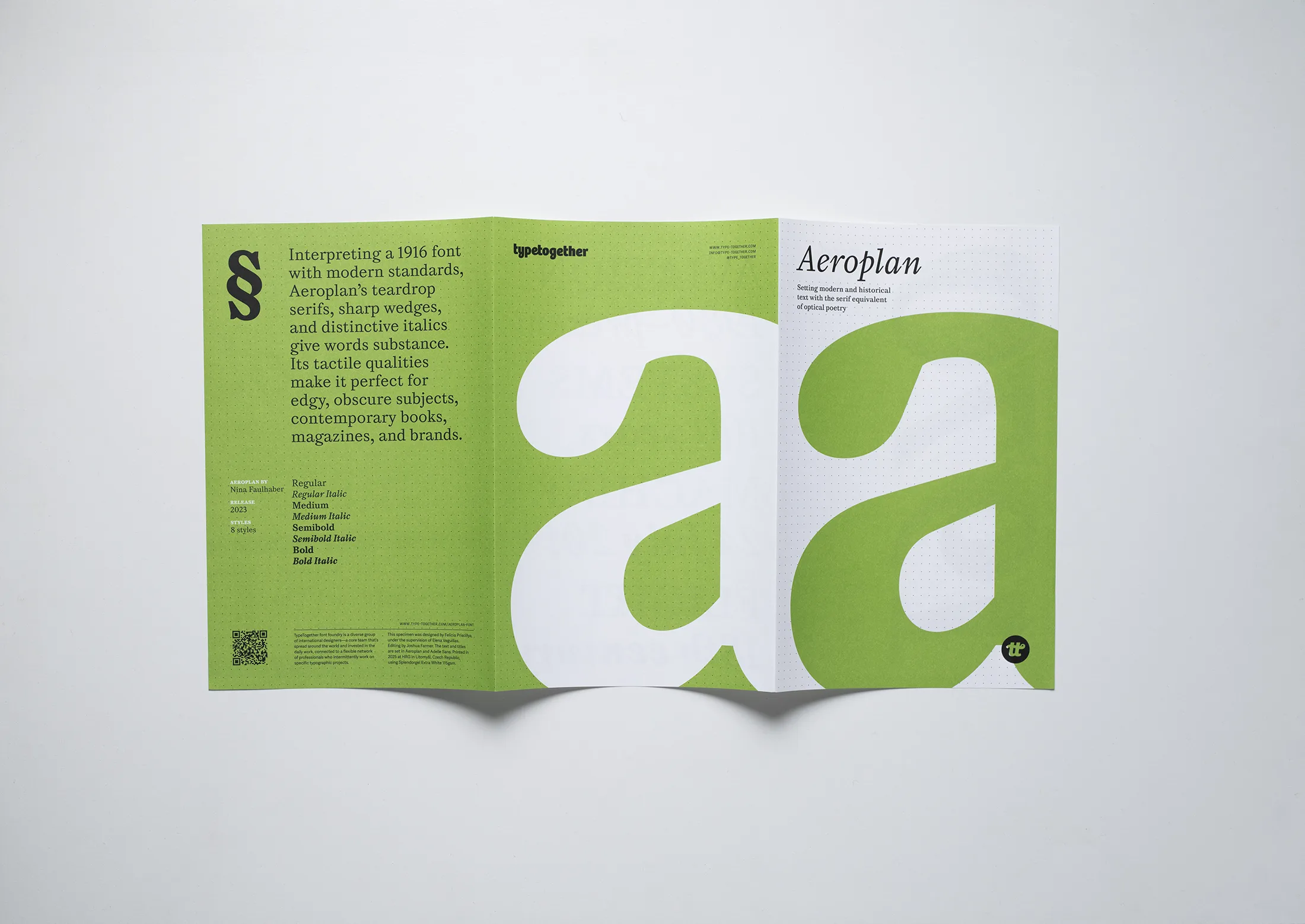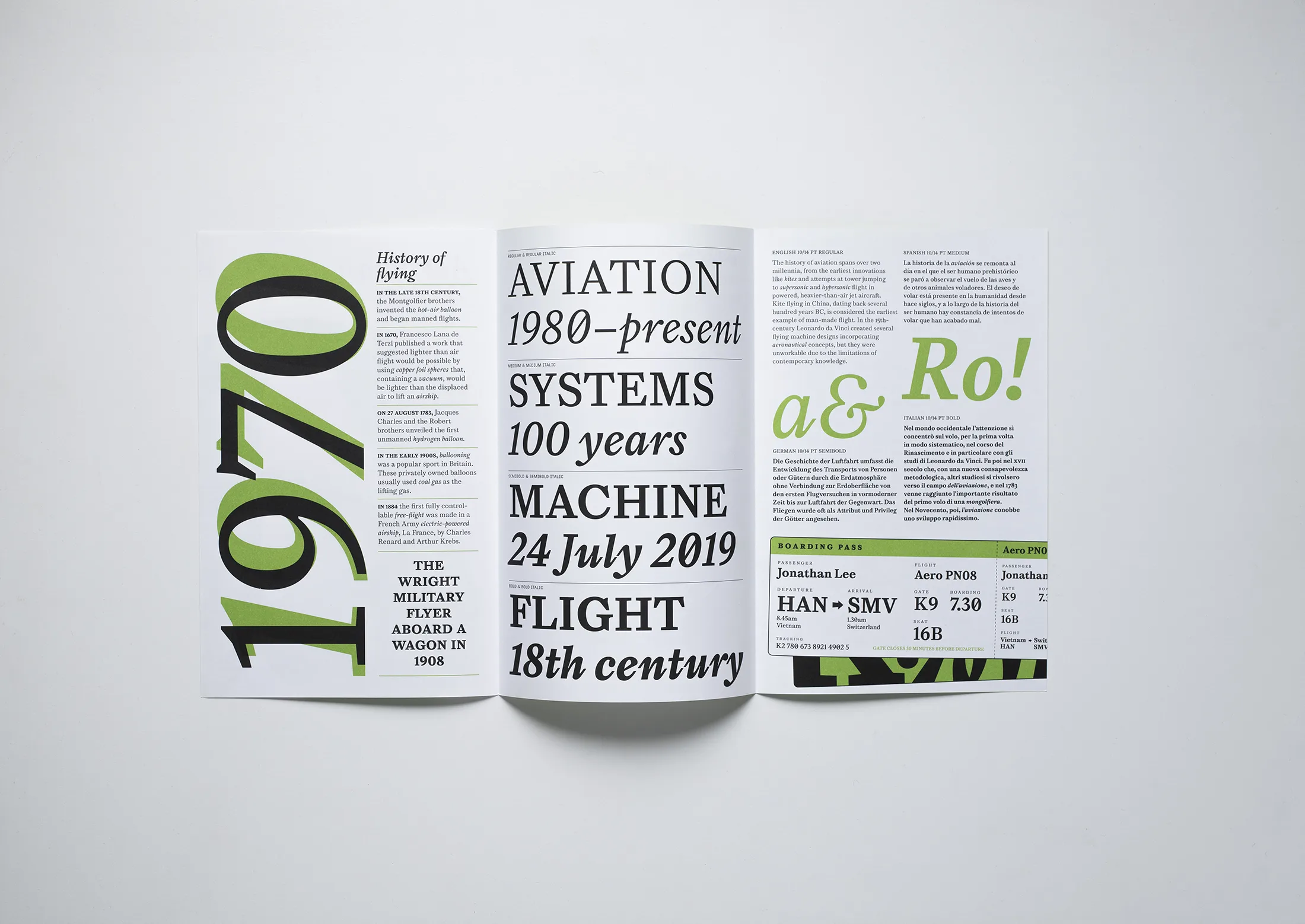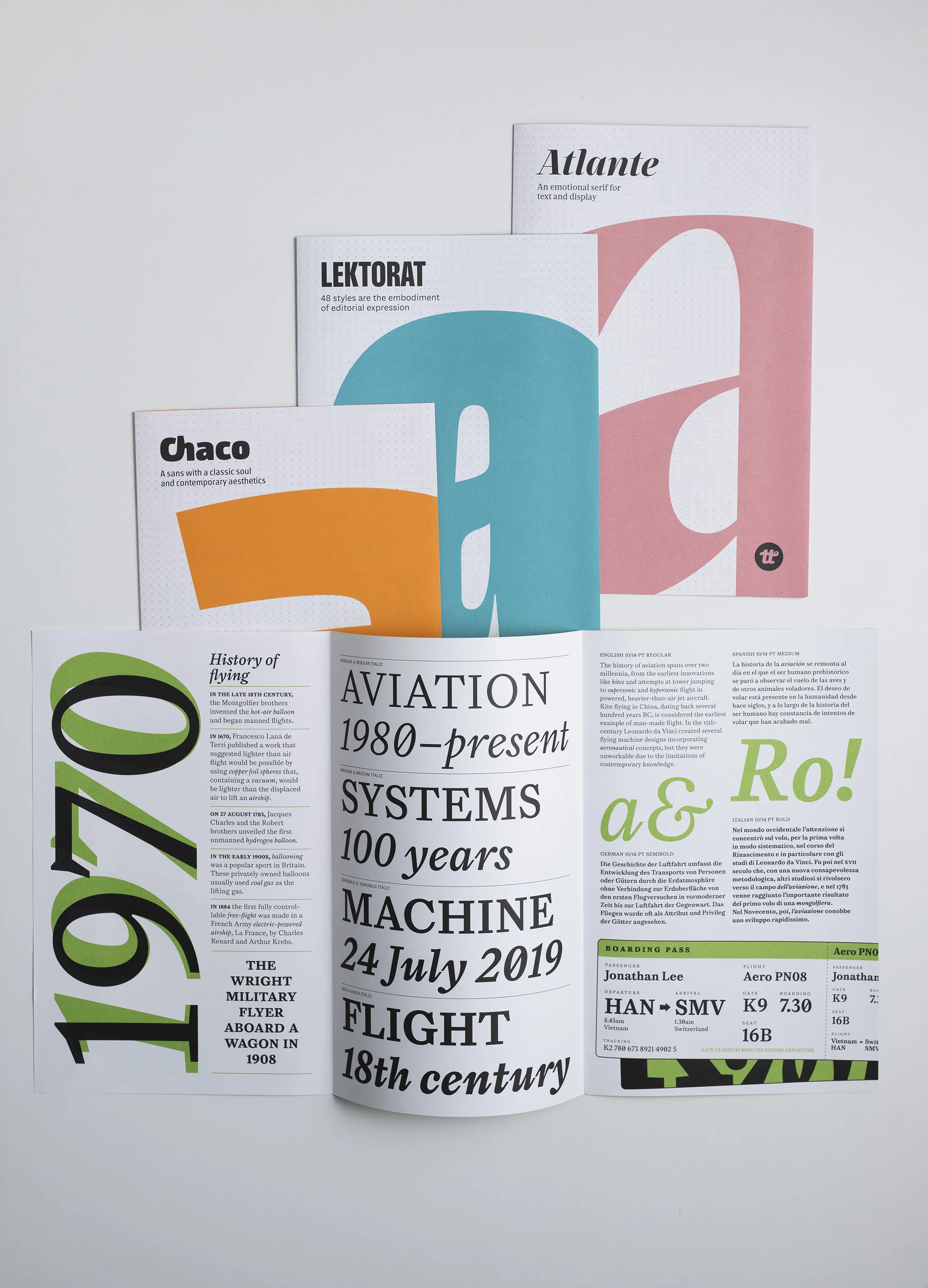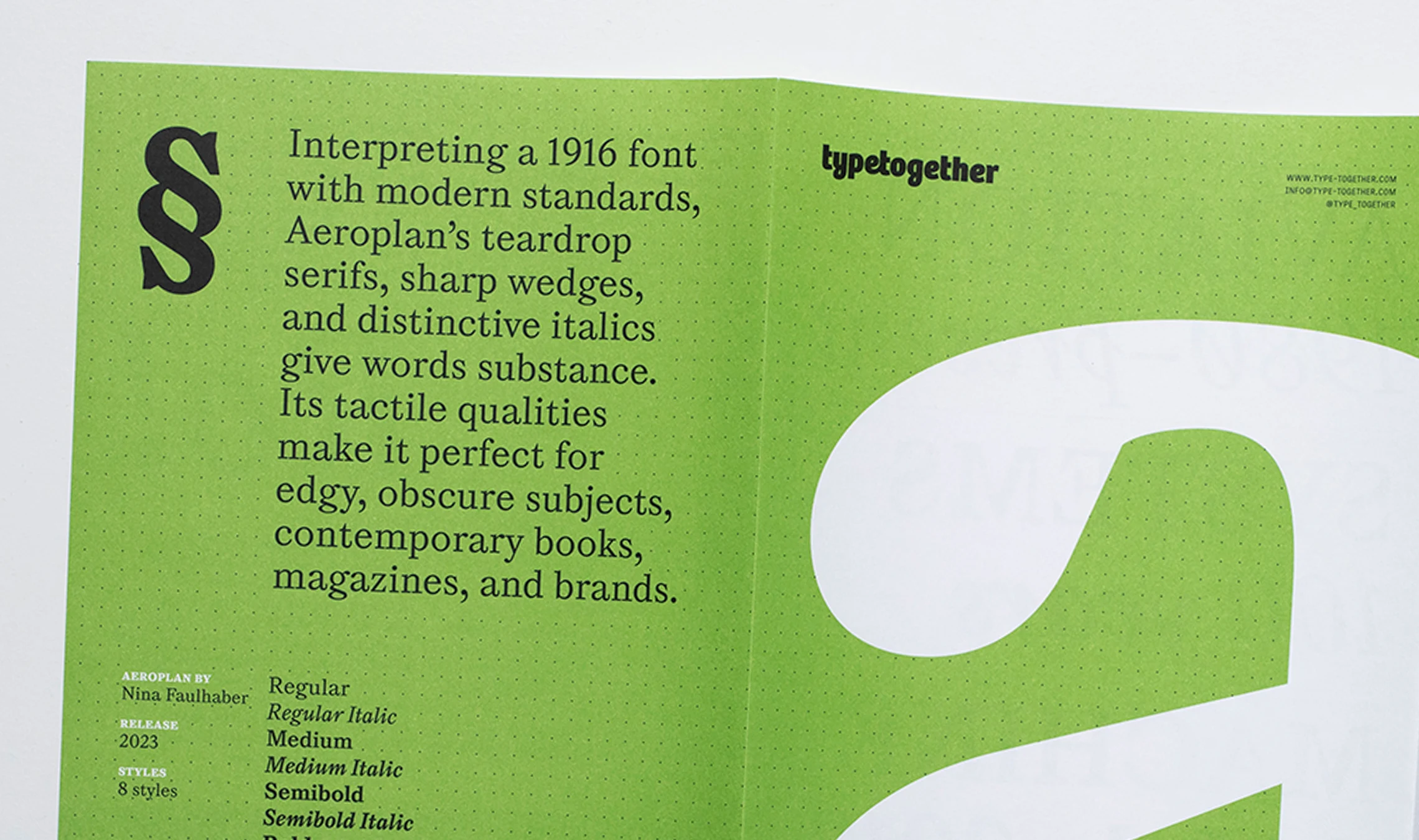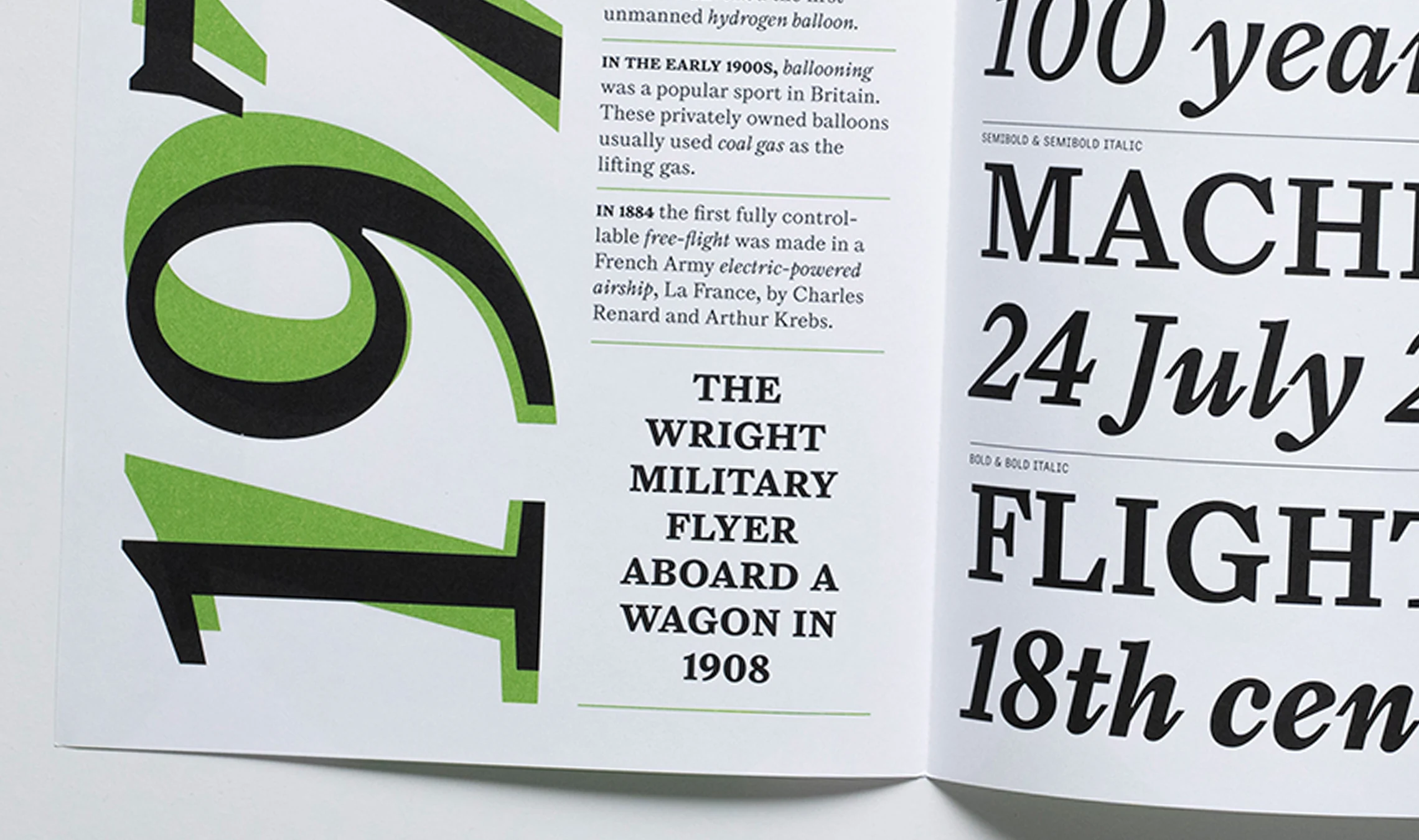
Aeroplan specimen
To mark the release of Aeroplan — an award-winning font family,  including the 2021 Gerard Unger Scholarship and the 2024 ISTD Certificate of Excellence — our talented graphic designer Felicia Priscillya designed this specimen, now available in our store. Aeroplan, designed by Nina Faulhaber, is a modern interpretation of a 1916 book font, with teardrop serifs, sharp wedges, and distinctive italics that give words substance. Just cover the shipping/handling and the poster is yours for free.